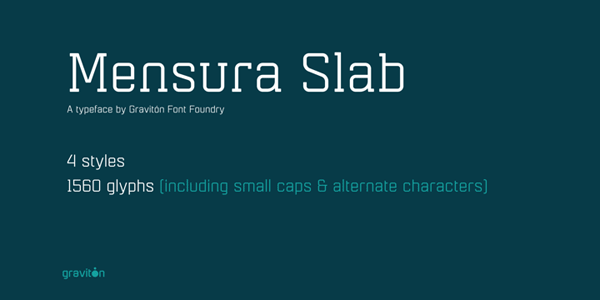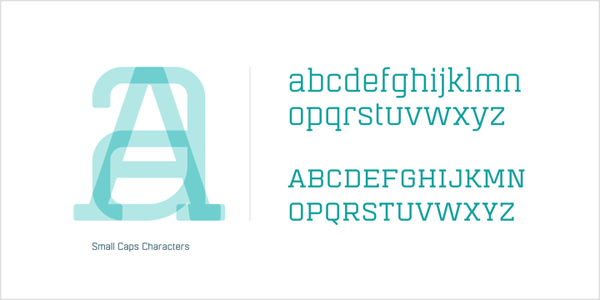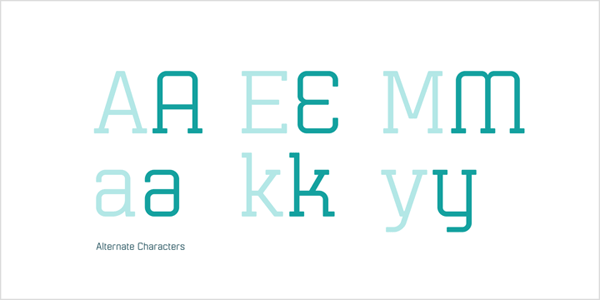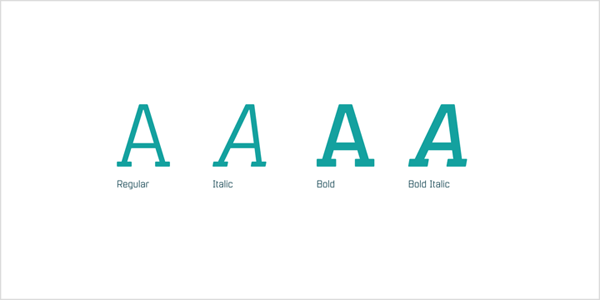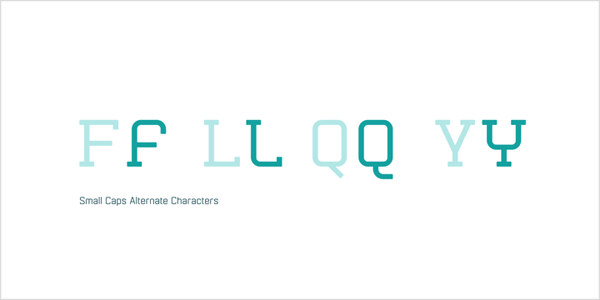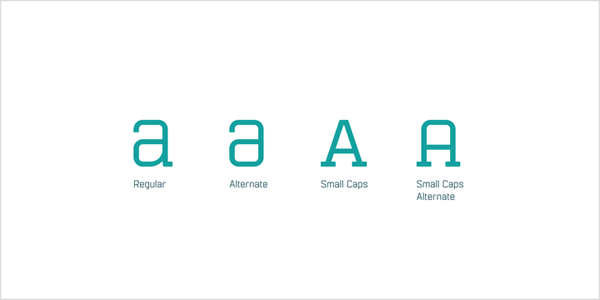
Mensura Slab.
Mensura Slab is a modern and geometric slab serif typeface designed in 2013 by Pablo Balcells (Font Publisher: Graviton Font Foundry). The font conveys a subtle rounded appearance. Mensura Slab works great as display typeface, but with its clarity it can also be used in texts. The type family includes 4 styles and 2 weights plus italics. Each of them containing small caps and numerous alternate characters.